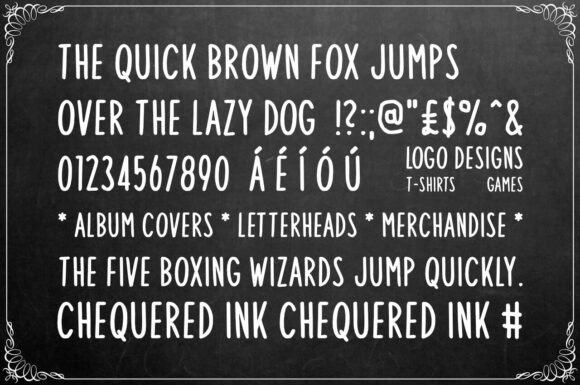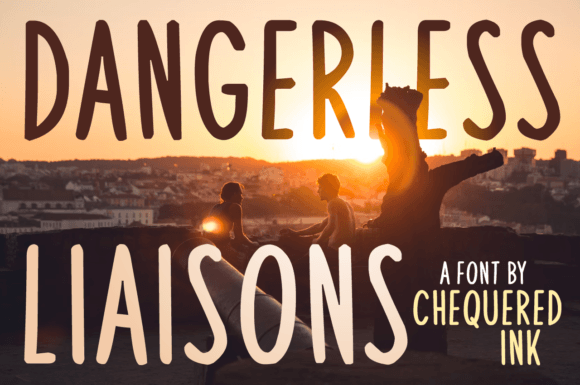
Dangerless Liaisons Font: Elevate Your Brand with a Unique, Hand-Crafted Look
In the world of design, fonts play a crucial role in shaping the identity of a brand. With the vast array of fonts available, it can be challenging to find one that truly sets your brand apart. This is where Dangerless Liaisons Font comes in – a distinctive, hand-crafted font designed to give your brand that extra wow factor. Whether you’re designing a logo, website, album cover, video game, or T-shirt, this font is sure to make your product stand out.
The Power of Hand-Crafted Fonts
Machine-generated fonts can be limiting, lacking the nuance and character that a human touch provides. At Chequered Ink, our designers have poured their hearts and souls into crafting unique fonts that exude a sense of personality and style. Dangerless Liaisons Font is a testament to their skill and dedication. By choosing a hand-crafted font, you’re not just selecting a typeface – you’re investing in a bespoke design that will elevate your brand to the next level.
What Sets Dangerless Liaisons Font Apart
Dangerless Liaisons Font boasts a distinctive, hand-crafted feel that’s perfect for designers and crafters looking to add a touch of elegance and sophistication to their work. Here are just a few reasons why this font stands out:
- Unique Character: Each letter has been carefully crafted to ensure that your text stands out from the crowd. The subtle imperfections and quirks of a hand-crafted font make it feel more approachable and human.
- Versatility: Whether you’re designing a logo, website, or print material, Dangerless Liaisons Font adapts seamlessly to any application. Its versatility makes it an excellent addition to any designer’s toolkit.
- Attention to Detail: Our designers have meticulously refined every detail, from the curves and lines to the spacing and kerning. The result is a font that’s not only beautiful but also highly legible.
Applications for Dangerless Liaisons Font
The possibilities are endless when it comes to using Dangerless Liaisons Font. Here are a few ideas to get you started:
- Logo Design: Create a lasting impression with a custom logo that incorporates Dangerless Liaisons Font. Perfect for businesses, products, or services looking to establish a strong brand identity.
- Website Design: Elevate your website’s typography with Dangerless Liaisons Font. Its clean lines and elegant feel make it perfect for headings, titles, and body text.
- Print Materials: From business cards to brochures, Dangerless Liaisons Font adds a touch of sophistication to any print material.
- Digital Media: Use Dangerless Liaisons Font in your video games, album covers, or social media graphics to create a unique and engaging visual identity.
Why Choose Dangerless Liaisons Font?
With so many fonts available, why choose Dangerless Liaisons Font? Here are just a few compelling reasons:
- Exclusive: As a hand-crafted font, Dangerless Liaisons Font is one-of-a-kind. You won’t find it anywhere else, ensuring that your brand stands out from the competition.
- Quality: At Chequered Ink, we’re committed to delivering exceptional quality fonts that exceed our customers’ expectations. Dangerless Liaisons Font is no exception.
Dangerless Liaisons Font is more than just a font – it’s a design statement. With its unique, hand-crafted feel and versatility, it’s the perfect choice for designers and crafters looking to elevate their brand. Whether you’re creating a logo, website, or print material, this font is sure to give your product that extra wow factor. So why settle for a machine-generated font when you can have a bespoke design that truly represents your brand? Choose Dangerless Liaisons Font today and discover the power of hand-crafted typography.